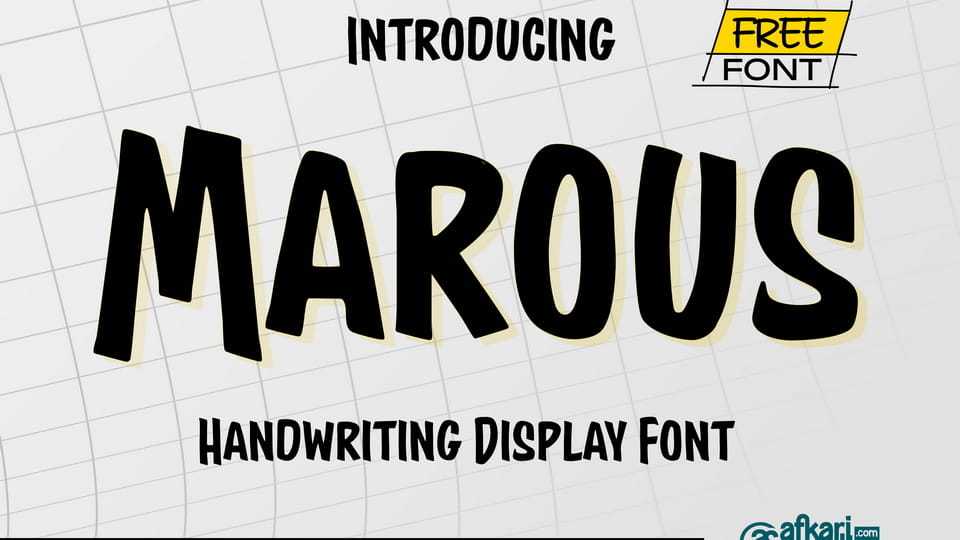
Download Marous font, a hand-drawn display typeface with a friendly, organic character and a slightly uneven rhythm. Inspired by casual lettering and playful handwriting, it brings warmth and personality to any design.
Designer: Afkari Studio